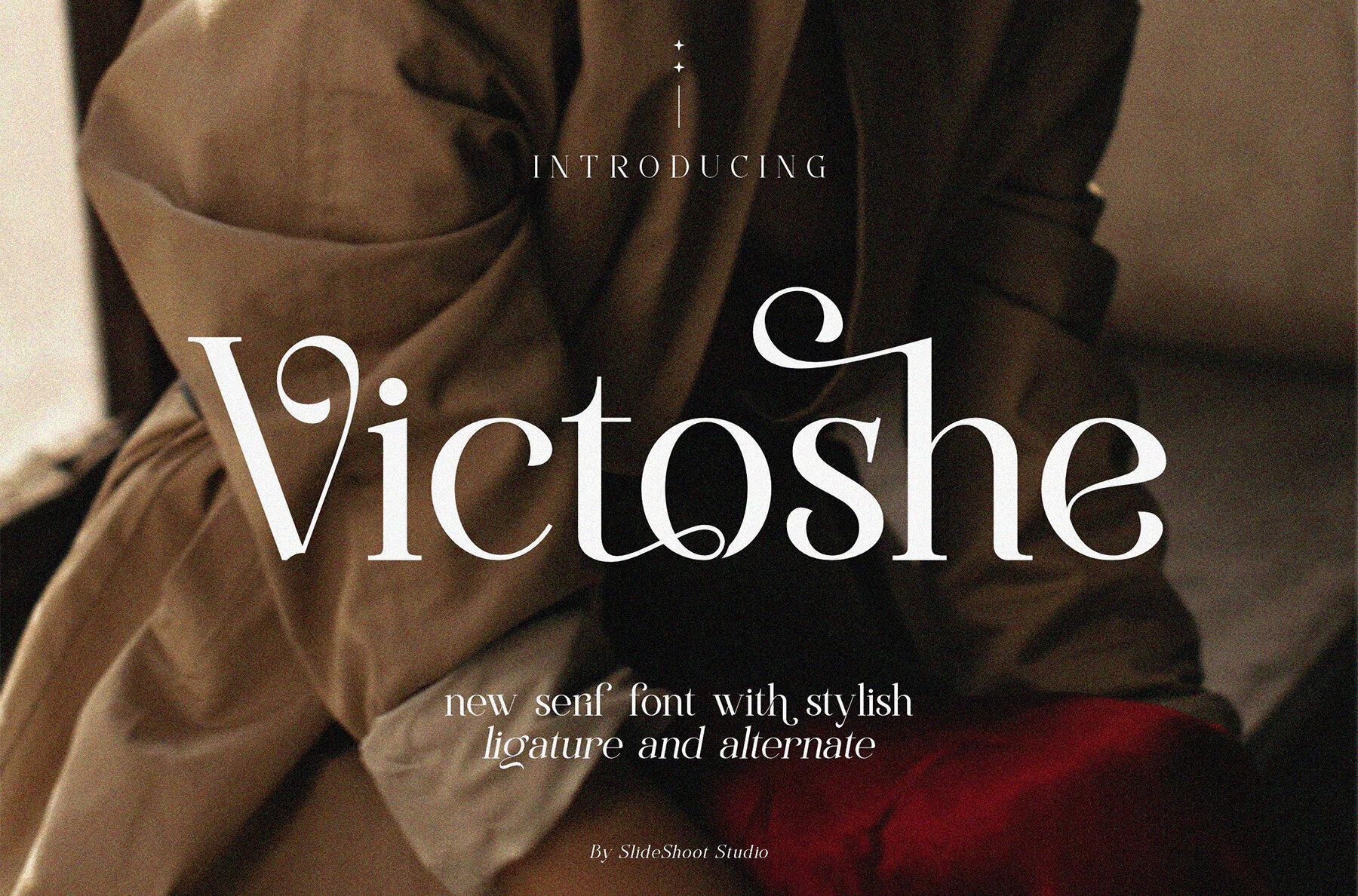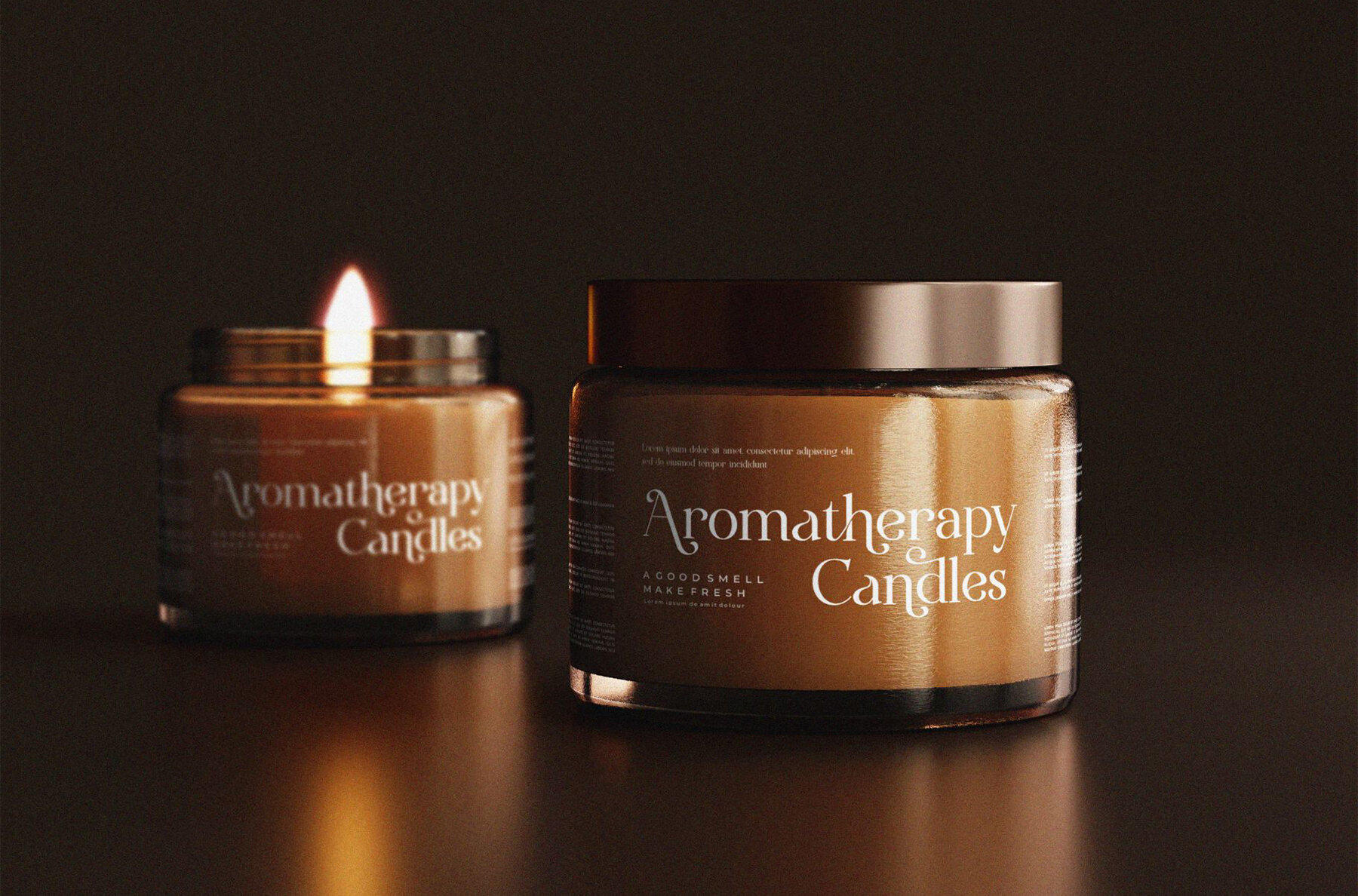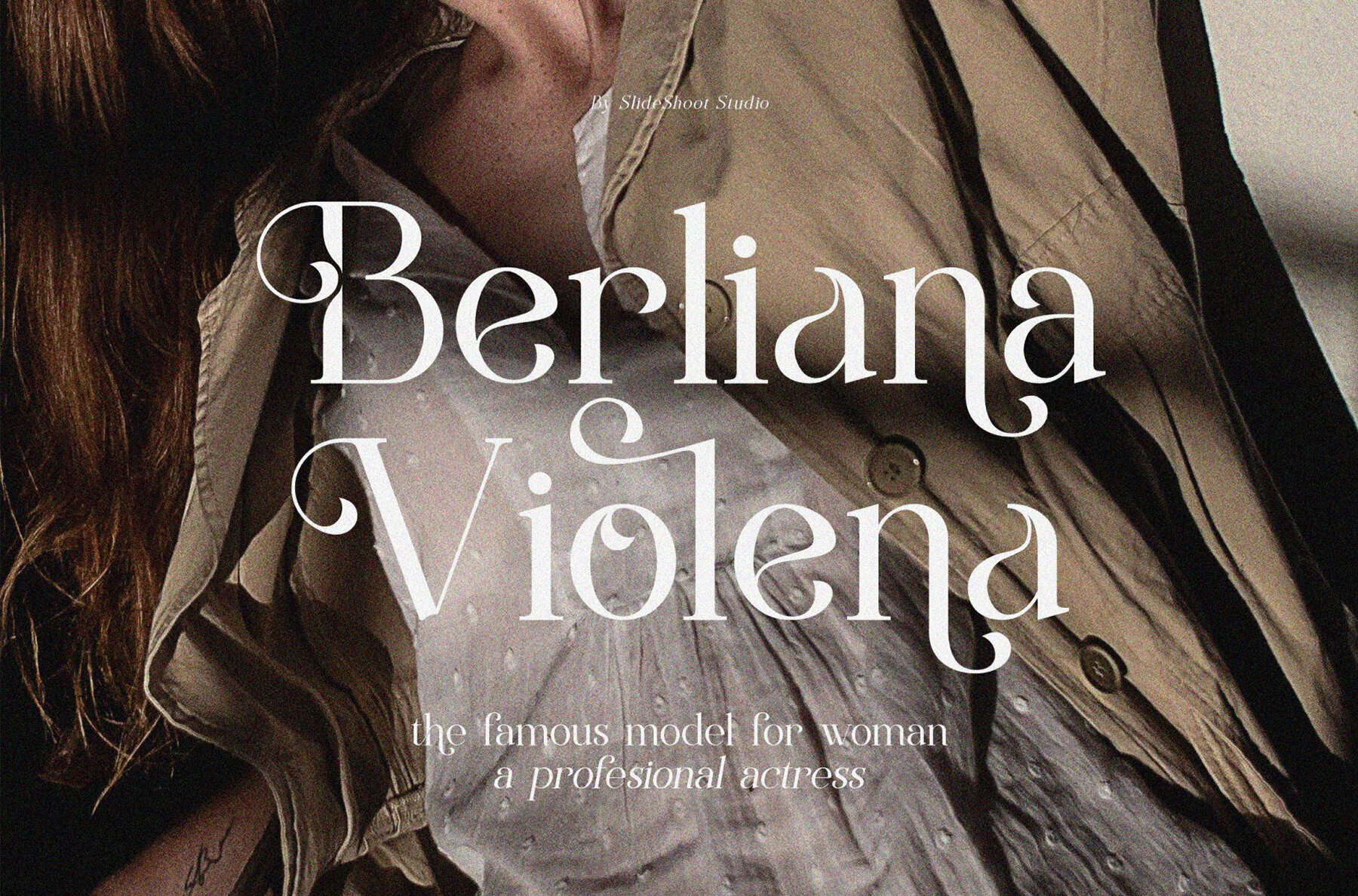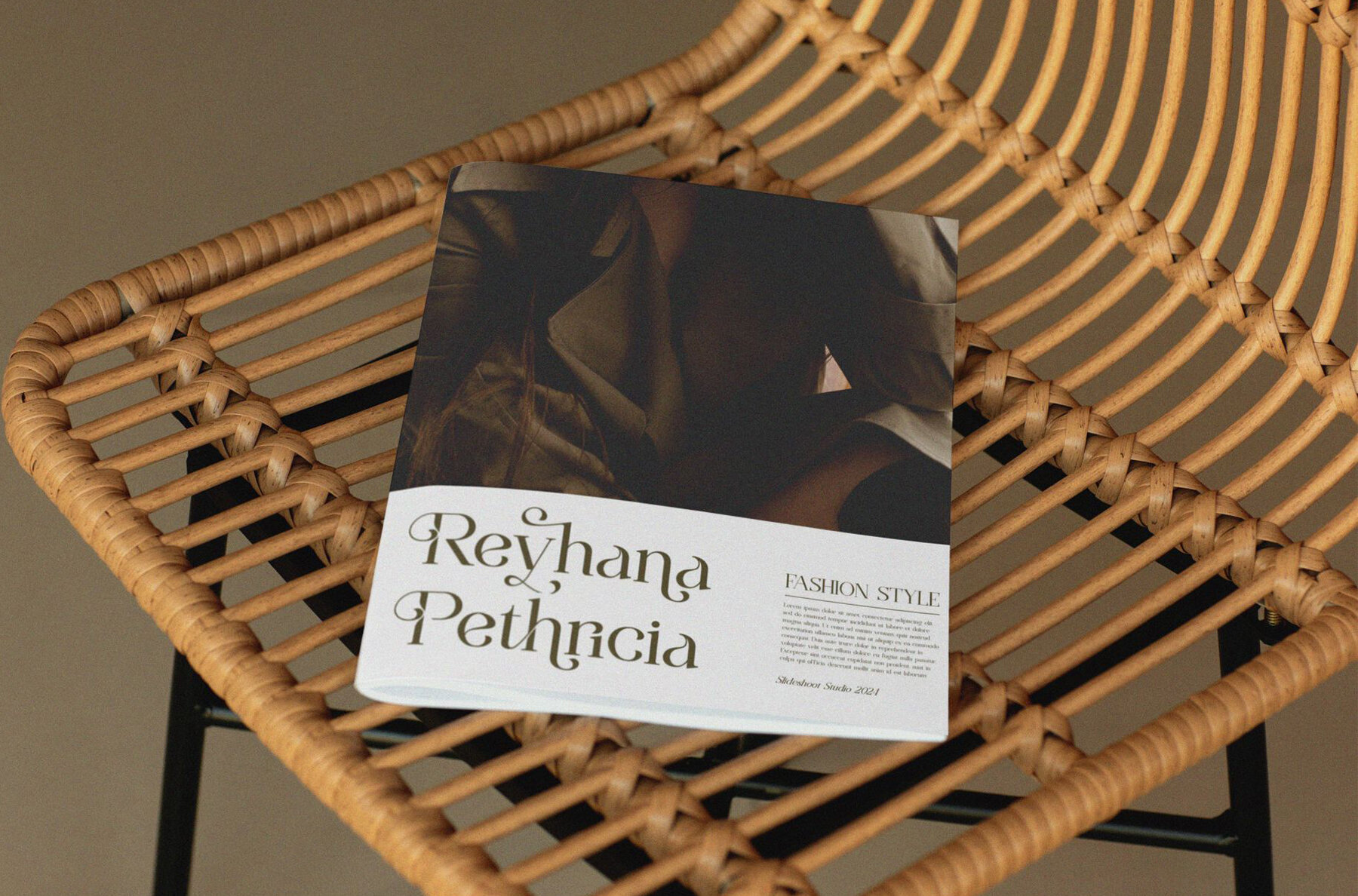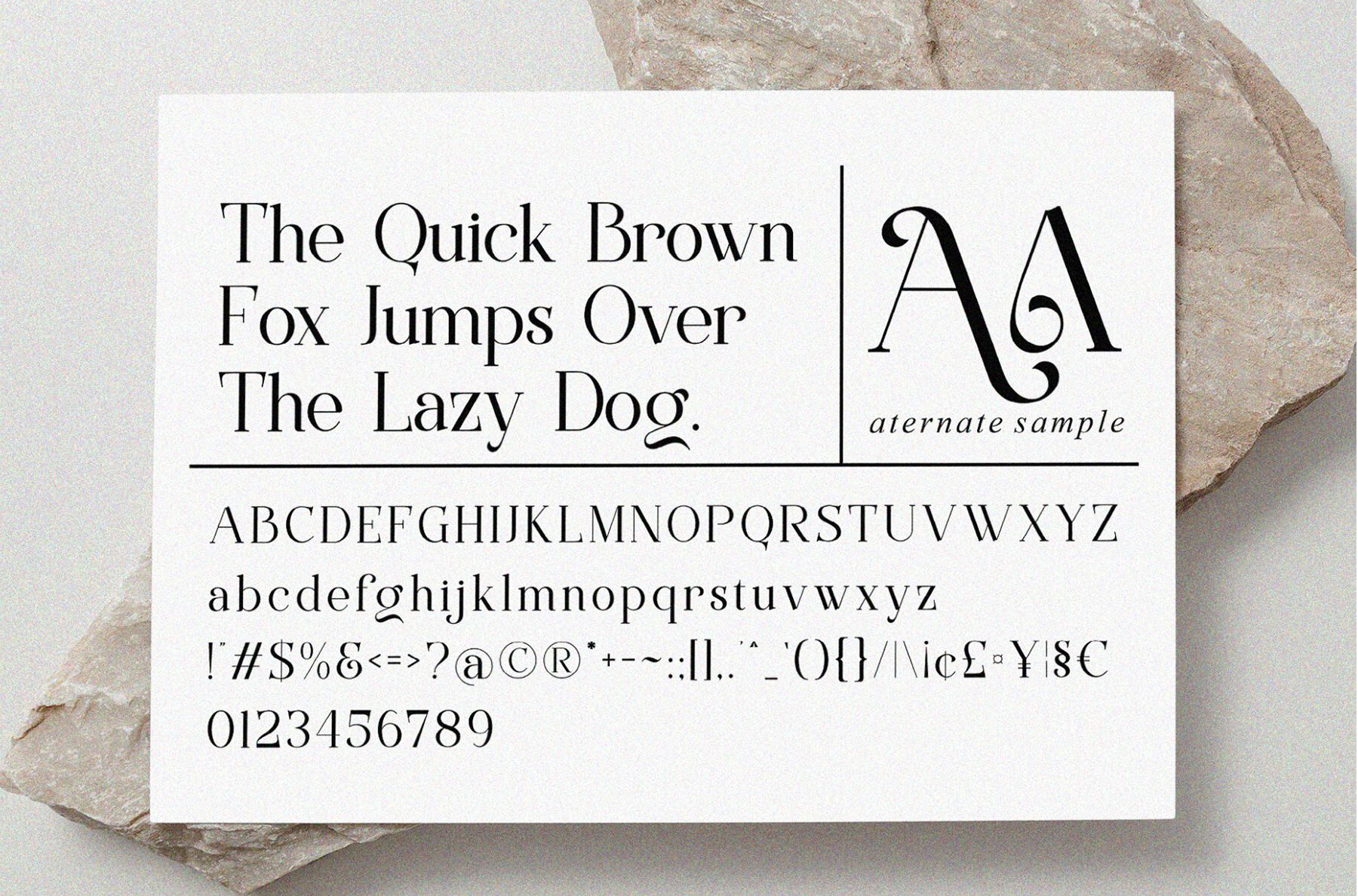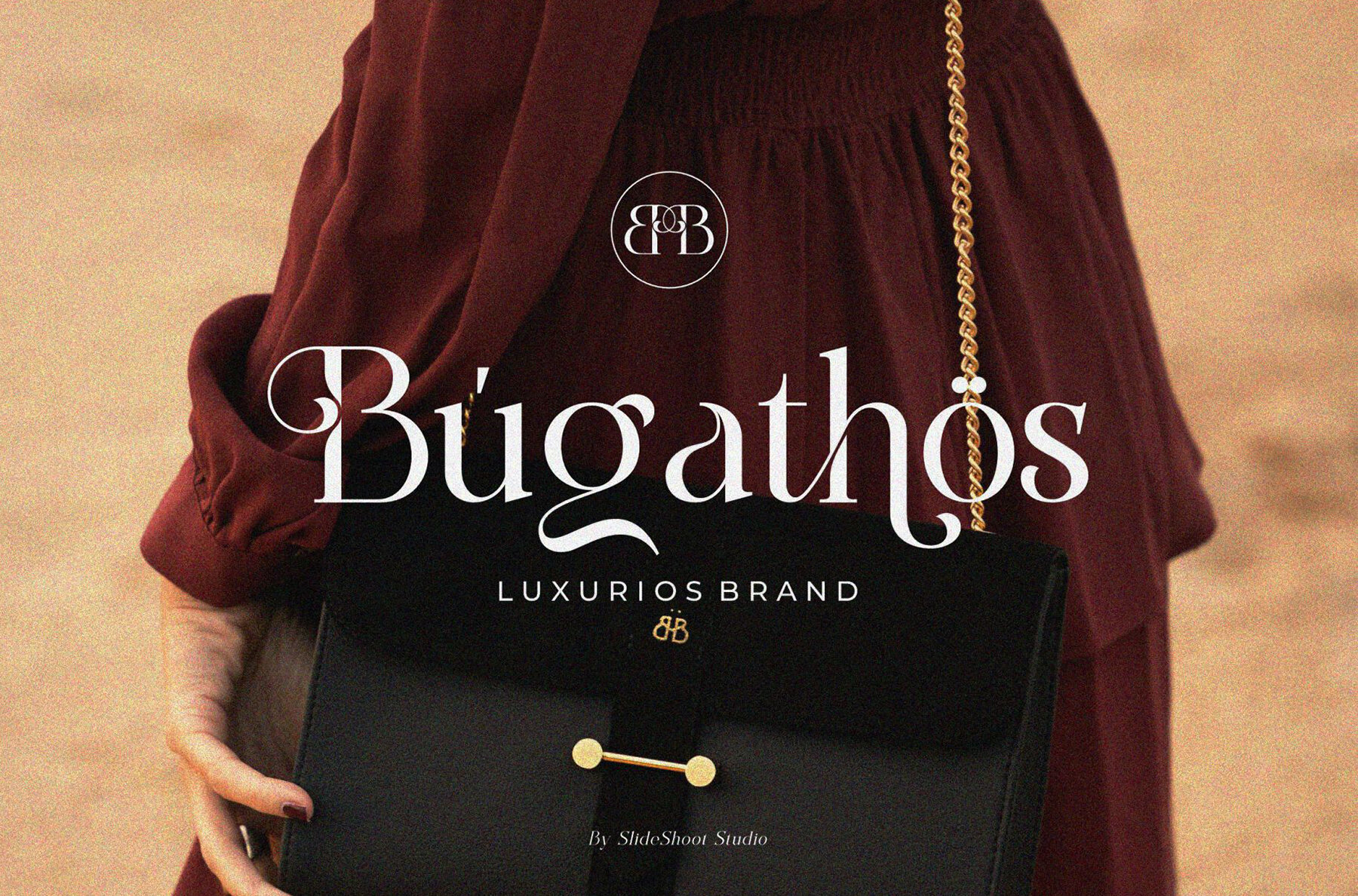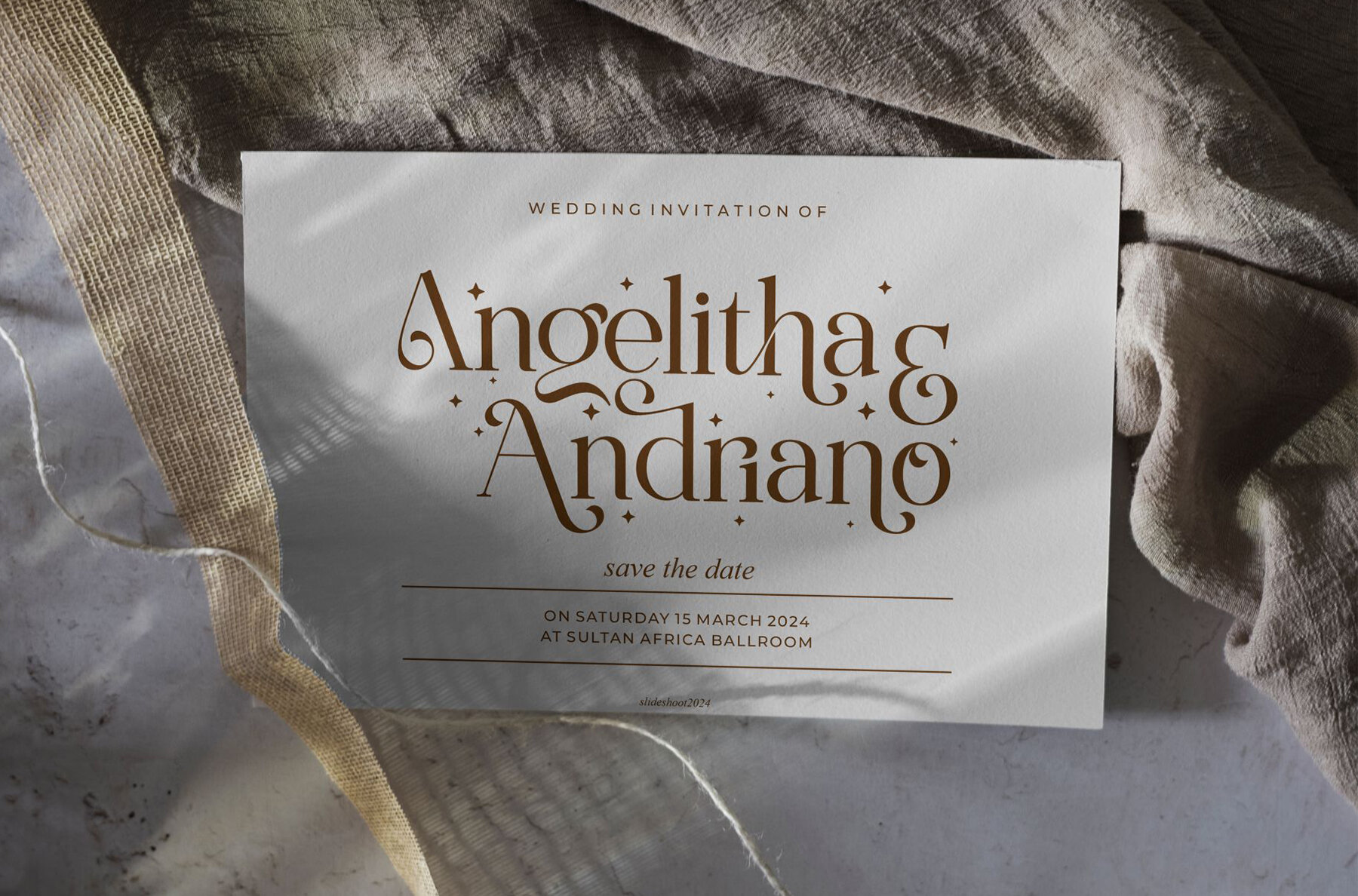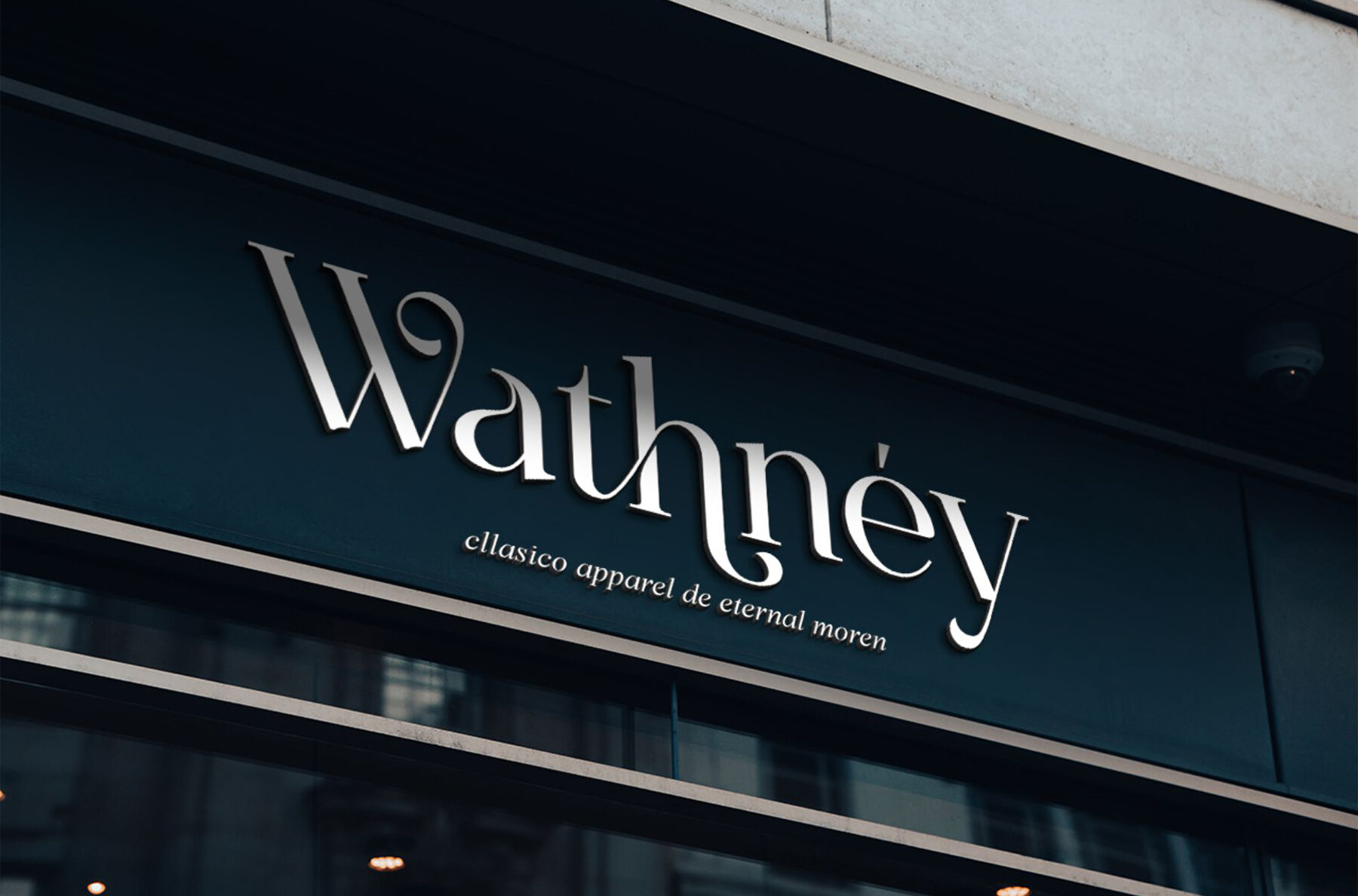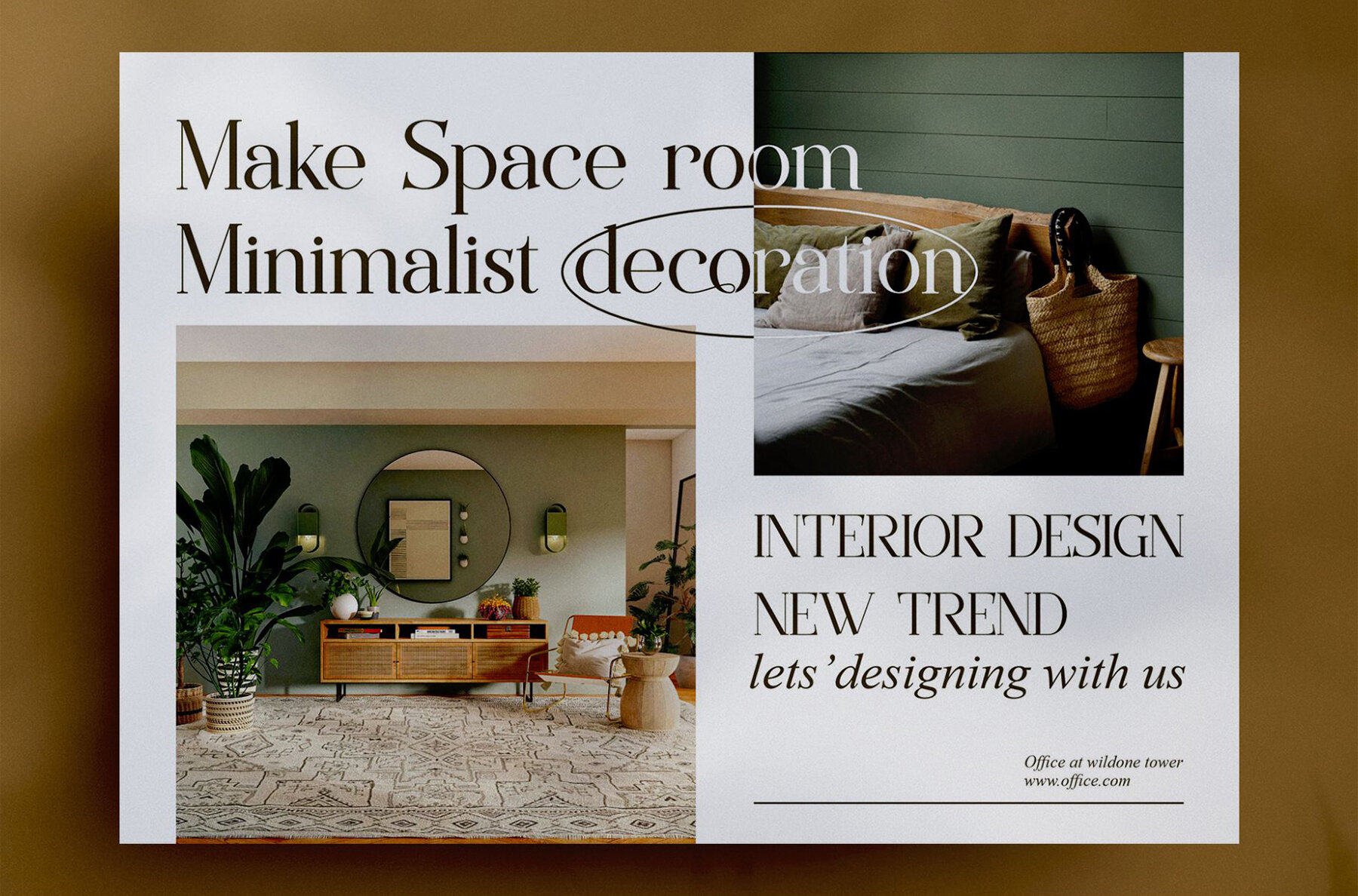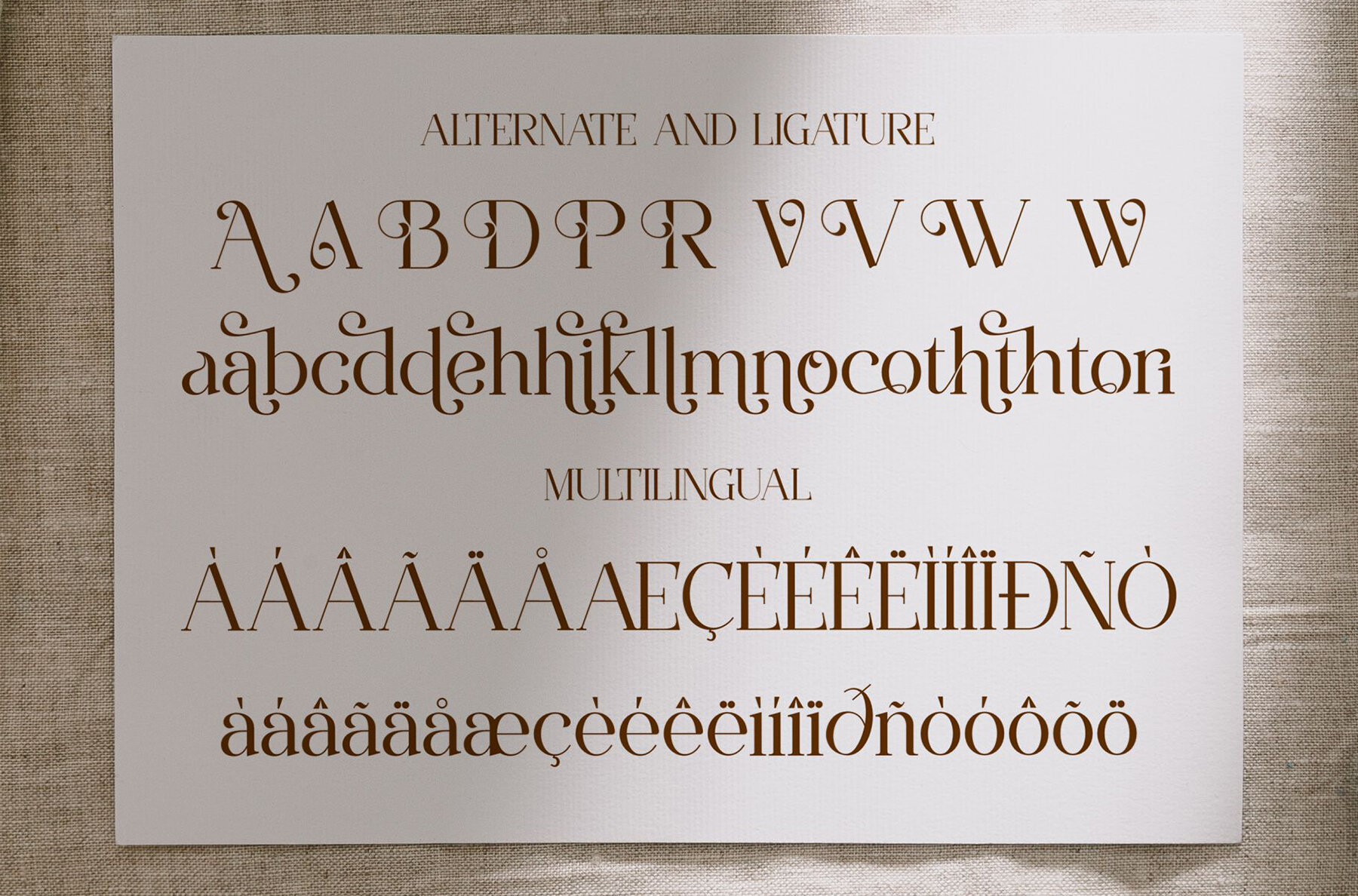
Victoshe Font
Victoshe Regular
Victoshe Serif is an elegant and refined typeface ideal for a diverse range of design applications, from branding to logos. With its modern aesthetic and sophisticated character, this font is a seamless choice for creating compelling invitation cards, sleek logos, captivating movie titles, polished business cards, and impressive book titles.
The smooth and classic design of Victoshe Serif speaks to its sophistication, while its stylish alternations and ligatures provide versatility for any creative project. Whether used for personal or professional endeavors, this font offers a touch of timeless elegance that enhances the visual appeal of your design work.